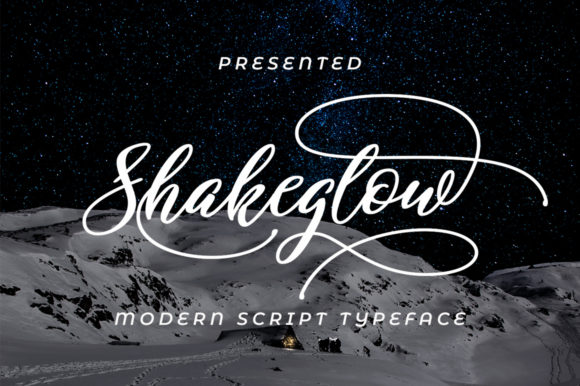
Introducing Shakeglow Script Font: The Epitome of Sophistication and Class for Your Creative Endeavors
Embark on a typographic journey of elegance and charm with Shakeglow Script Font, a masterpiece that blends the allure of a flowing script with the precision of a sleek serif. This captivating font, meticulously crafted by the skilled artisans at alandya typefoundry, is an artistic symphony that will transform your designs into visual poetry.
Ascend to the pinnacle of typographic artistry with Shakeglow Script Font, the ultimate choice for fashion-forward designers, e-commerce visionaries, trendsetting bloggers, and discerning wedding boutiques. Its slender, feminine strokes and classy demeanor evoke a sense of luxury and sophistication that will elevate your designs to new heights of elegance.
With Shakeglow Script Font, versatility is not just a feature, it's an art form. Its diverse stylistic characters open up a world of creative possibilities, empowering you to craft original and captivating designs that resonate with your audience. Create high-end logotypes that exude exclusivity, magazine headlines that command attention, and greeting cards that convey heartfelt sentiments.
Picture the impact of Shakeglow Script Font on your invitations, posters, book covers, and advertisements. Its timeless beauty and understated charm will captivate your audience, leaving them spellbound by the sheer elegance of your designs. Embrace the digital realm with Shakeglow Script Font, seamlessly integrating it into your web and screen creations.
Shakeglow Script Font is the perfect choice when you want to convey a sense of class and style. Its delicate balance of formal and informal elements makes it ideal for projects that demand a touch of understated elegance. Whether you're designing a fashion catalog, an e-commerce website, or a wedding invitation, Shakeglow Script Font will add a touch of sophistication and charm that will leave a lasting impression.